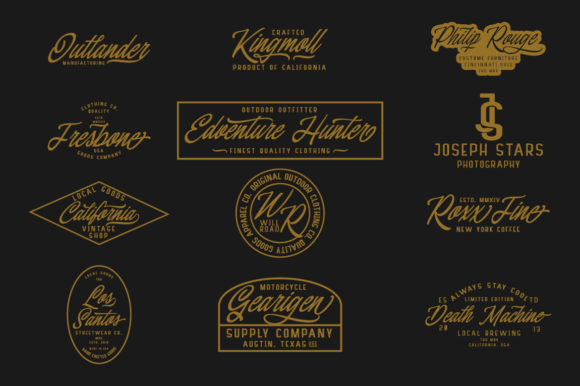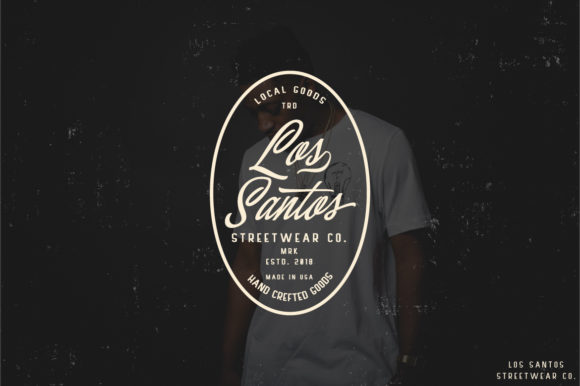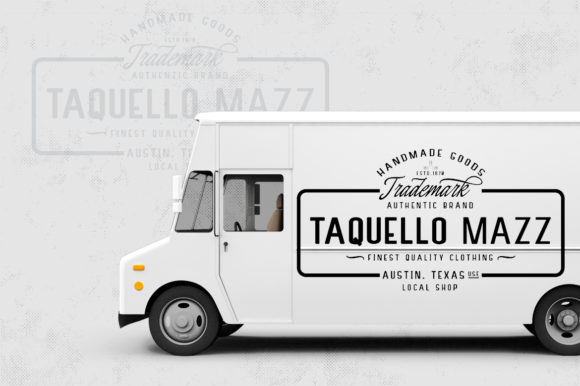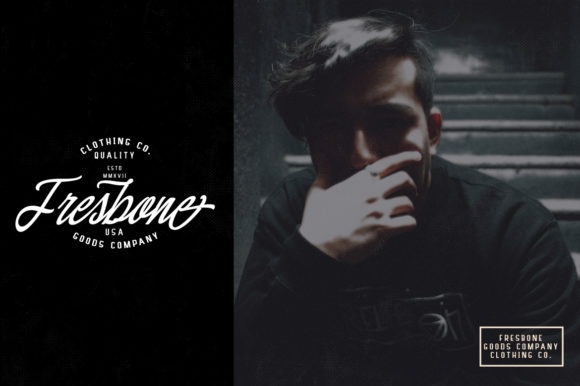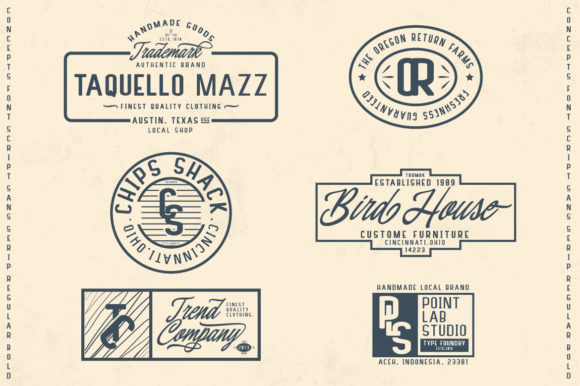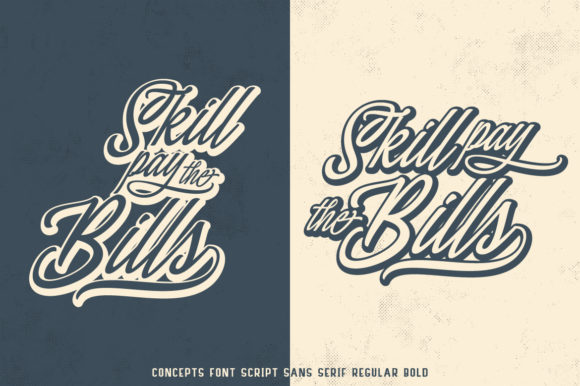
Introducing Concepts Font: The Handmade Script that Adds a Personal Touch to Your Designs
Are you tired of using the same old fonts in your design projects? Do you want to add a personal spark that sets your work apart from the rest? Look no further than Concepts Font, a beautiful handmade script that’s full of life and energy. In this article, we’ll take a closer look at Concepts Font, its unique features, and how you can use it to elevate your designs.
What is Concepts Font?
Concepts Font is a carefully crafted handwritten script that’s designed to bring a touch of personality to your designs. With its unique blend of elegance and playfulness, this font is perfect for designers, crafters, and anyone looking to add a human touch to their work. Whether you’re creating a logo, branding materials, or social media graphics, Concepts Font is the perfect choice.
Key Features of Concepts Font
• Handmade with love: Concepts Font is a truly handmade script, created with care and attention to detail. Each letter is carefully crafted to ensure a unique and personal feel.
• Full of life: This font is designed to be energetic and playful, making it perfect for designs that need a bit of personality.
• Perfect for creative projects: Whether you’re a designer, crafter, or artist, Concepts Font is the perfect choice for any creative project.
• Easy to read: Despite its playful nature, Concepts Font is surprisingly easy to read, making it perfect for use in body text or captions.
• Highly versatile: Concepts Font can be used in a wide range of design applications, from logos and branding to social media graphics and more.
How to Use Concepts Font in Your Designs
Concepts Font is incredibly easy to use, even if you’re new to typography. Here are a few tips to get you started:
• Pair it with bold fonts: Concepts Font pairs perfectly with bold, sans-serif fonts. Try pairing it with a font like Arial Black or Impact for a striking contrast.
• Use it for headings: Concepts Font is perfect for use in headings and titles. Its unique personality makes it a great choice for grabbing attention.
• Add some texture: Concepts Font looks amazing with texture and patterns. Try adding a subtle texture to your design to give it a more handmade feel.
Why Designers and Crafters Love Concepts Font
So why do designers and crafters love Concepts Font? Here are a few reasons:
• Unique personality: Concepts Font has a unique personality that’s hard to find in other fonts. Its handmade feel makes it perfect for designers and crafters who want to stand out.
• Easy to use: Despite its unique personality, Concepts Font is incredibly easy to use. It’s perfect for designers and crafters of all skill levels.
• High-quality design: Concepts Font is designed to high standards, ensuring that it looks amazing in any design application.
In conclusion, Concepts Font is a beautiful handmade script that’s perfect for designers and crafters looking to add a personal touch to their work. With its unique personality, ease of use, and high-quality design, it’s the perfect choice for any creative project. So why not give Concepts Font a try today and see the difference it can make in your designs?
Whether you’re a seasoned designer or a crafter just starting out, Concepts Font is a must-have addition to your typography toolkit. So go ahead, get creative, and see what amazing designs you can create with Concepts Font!